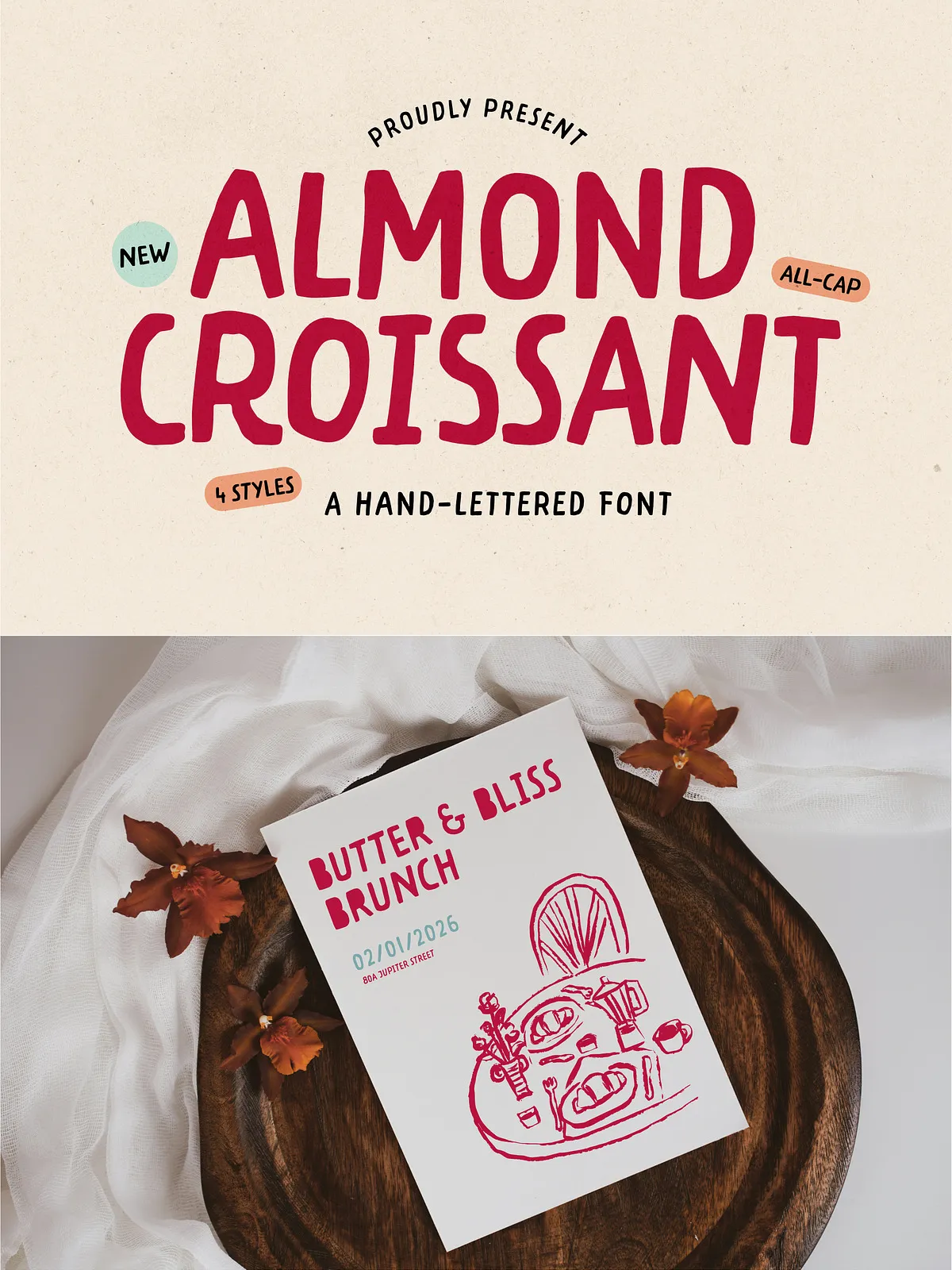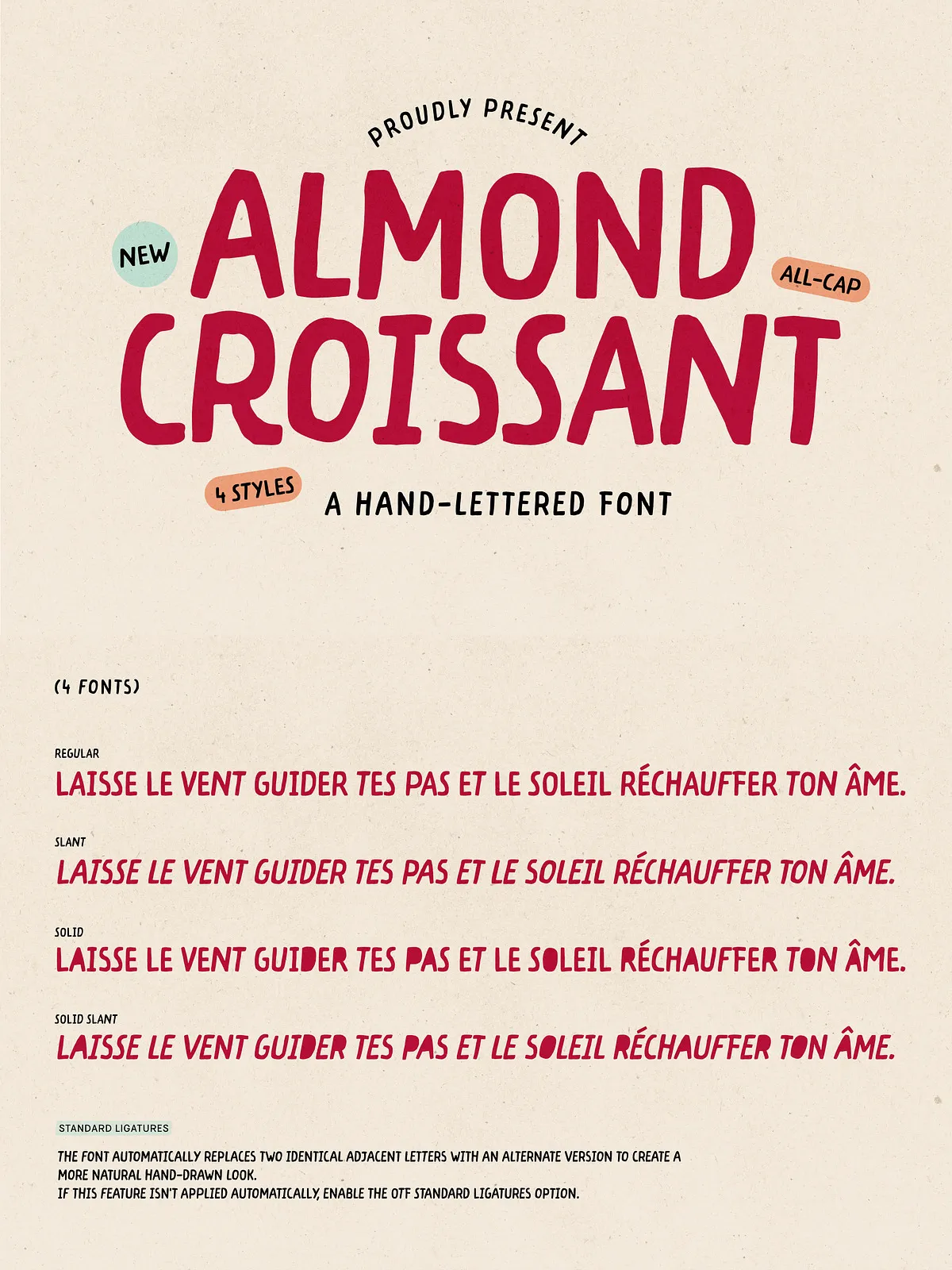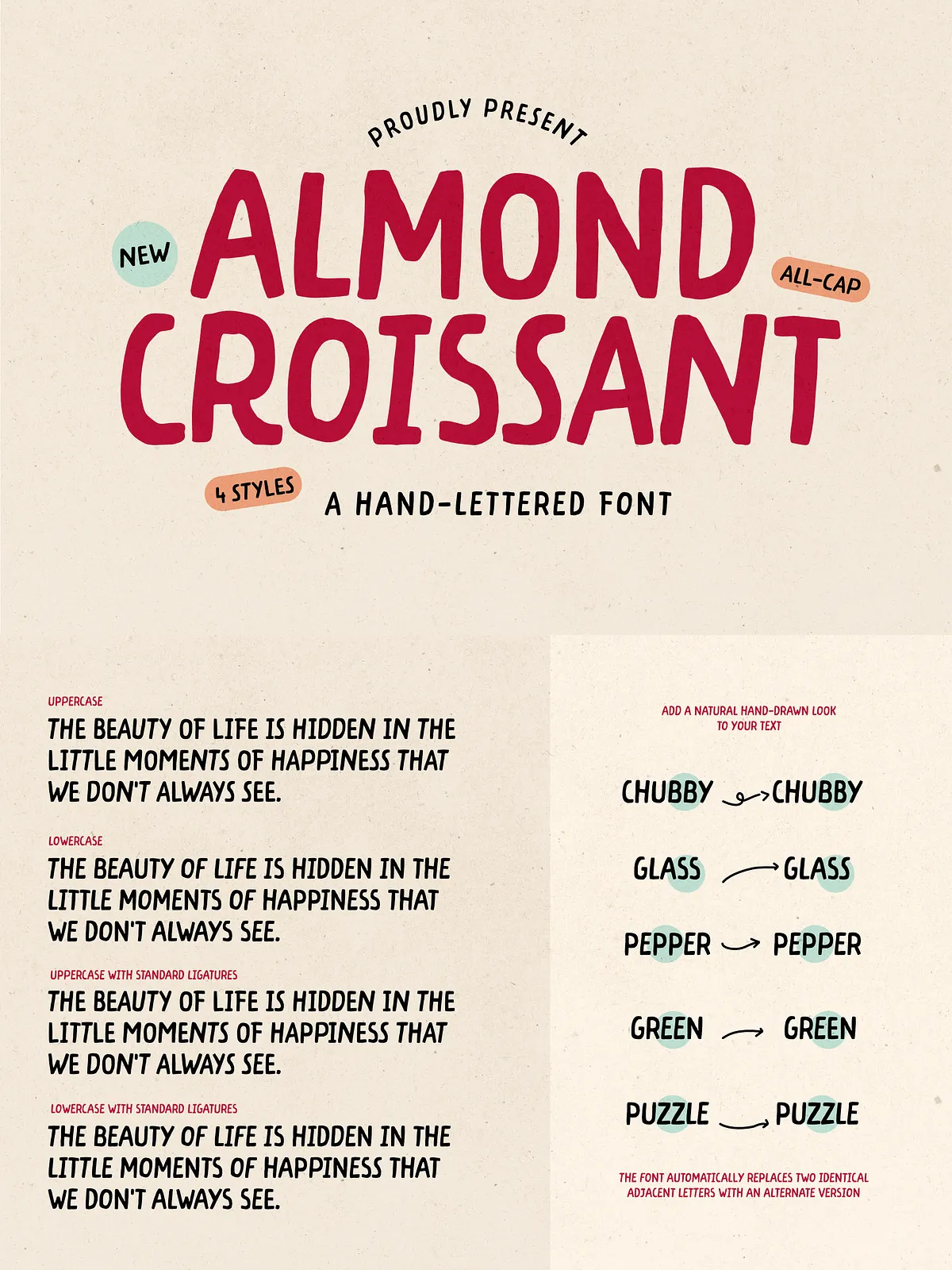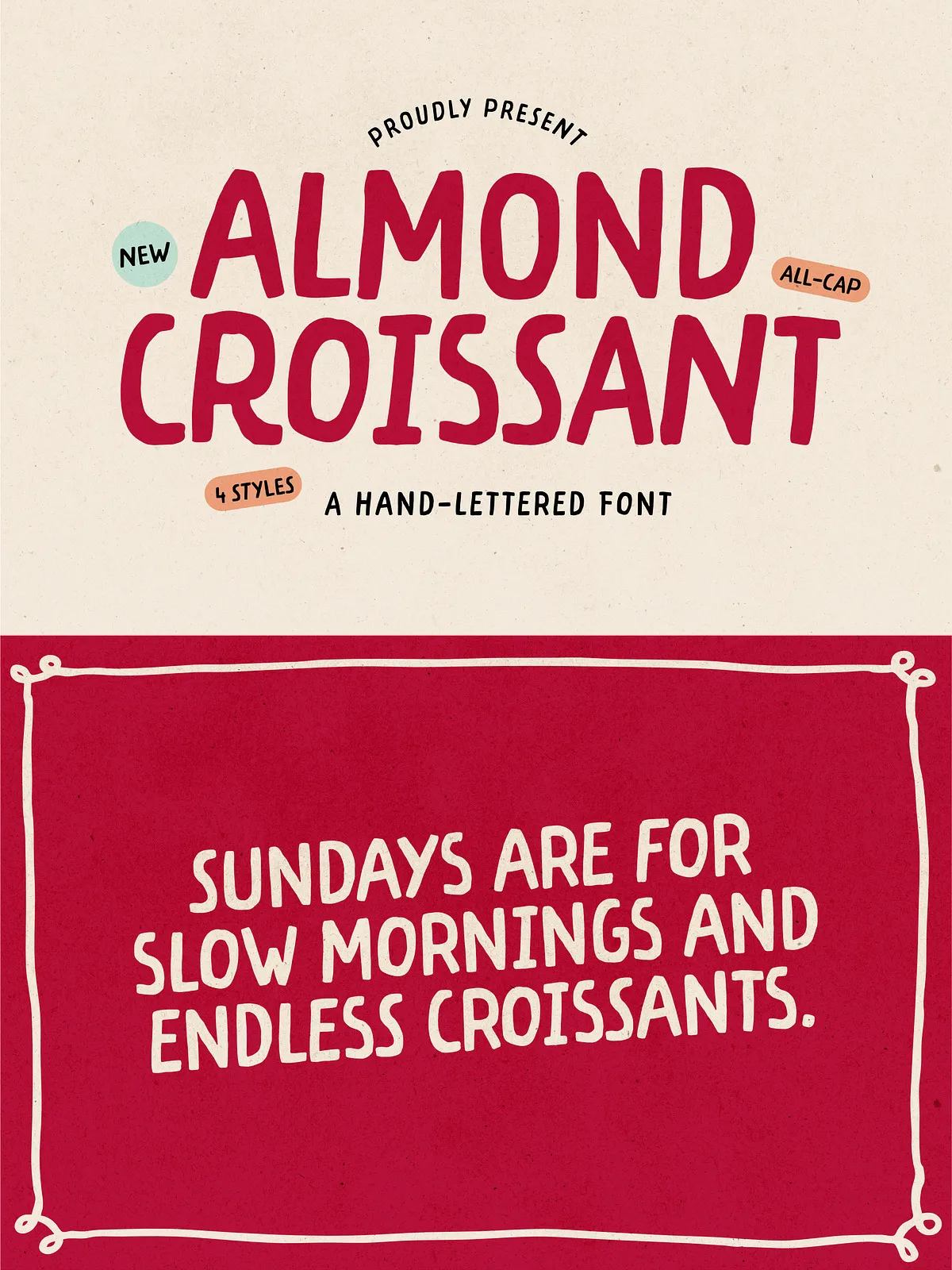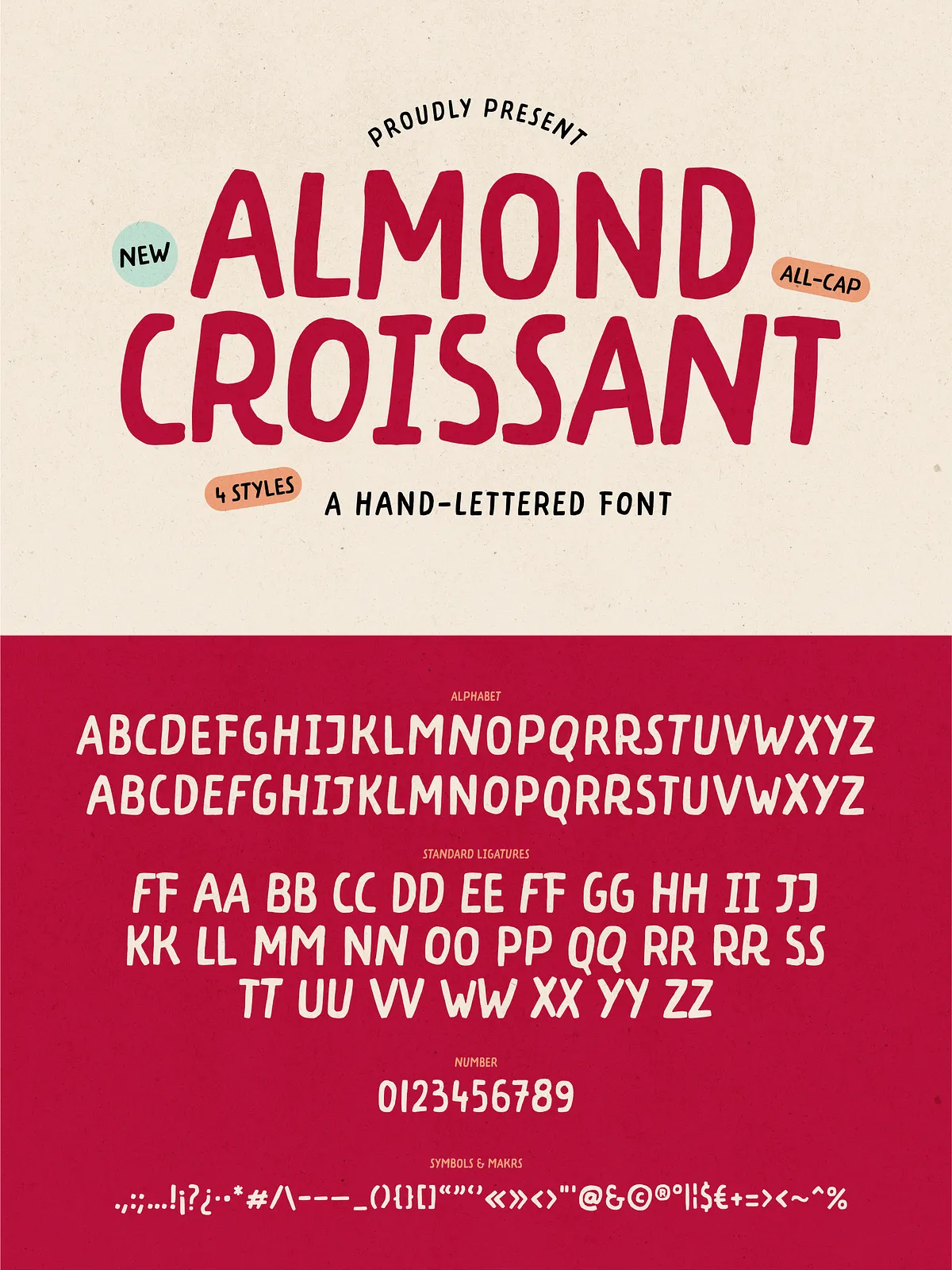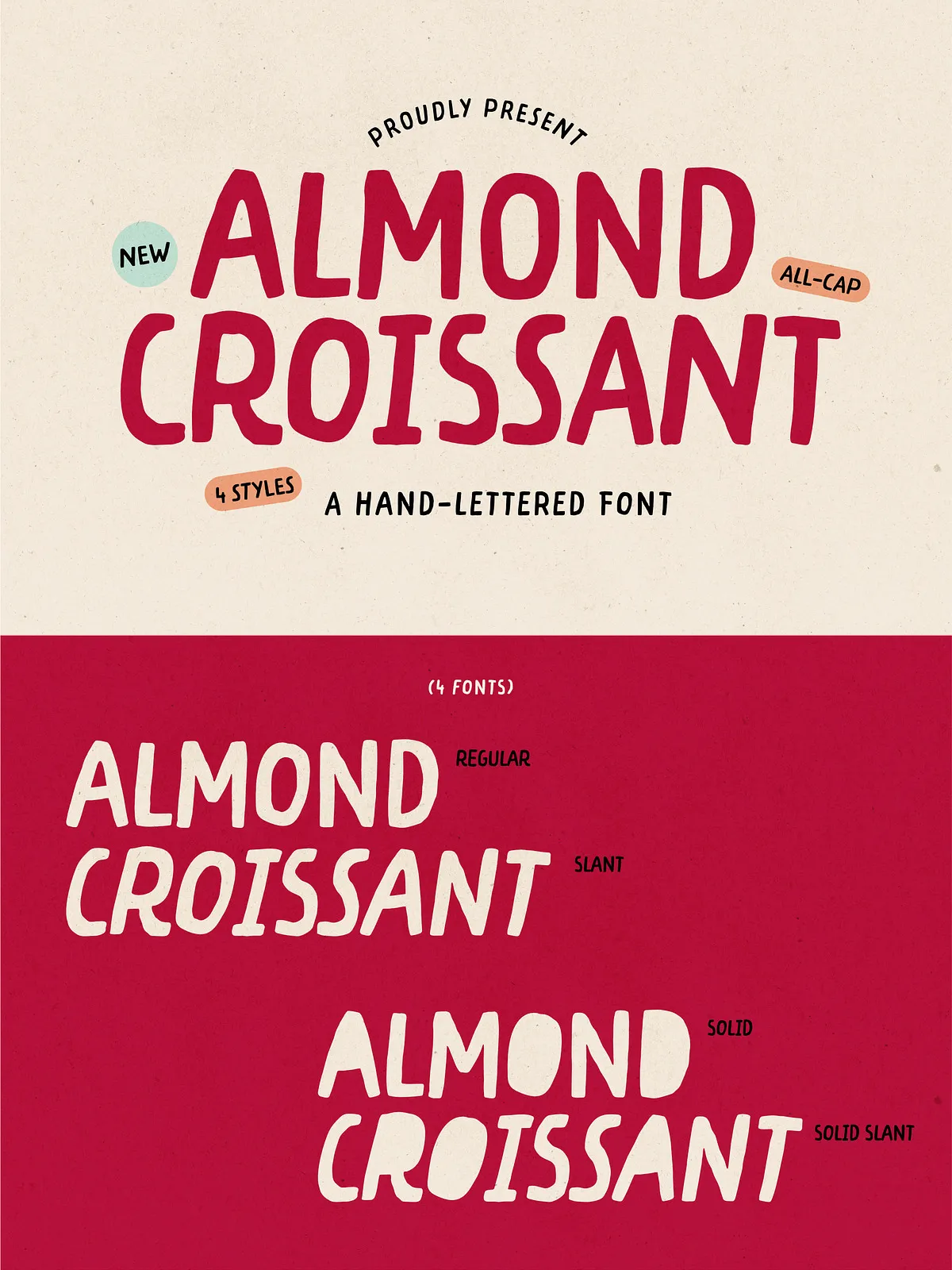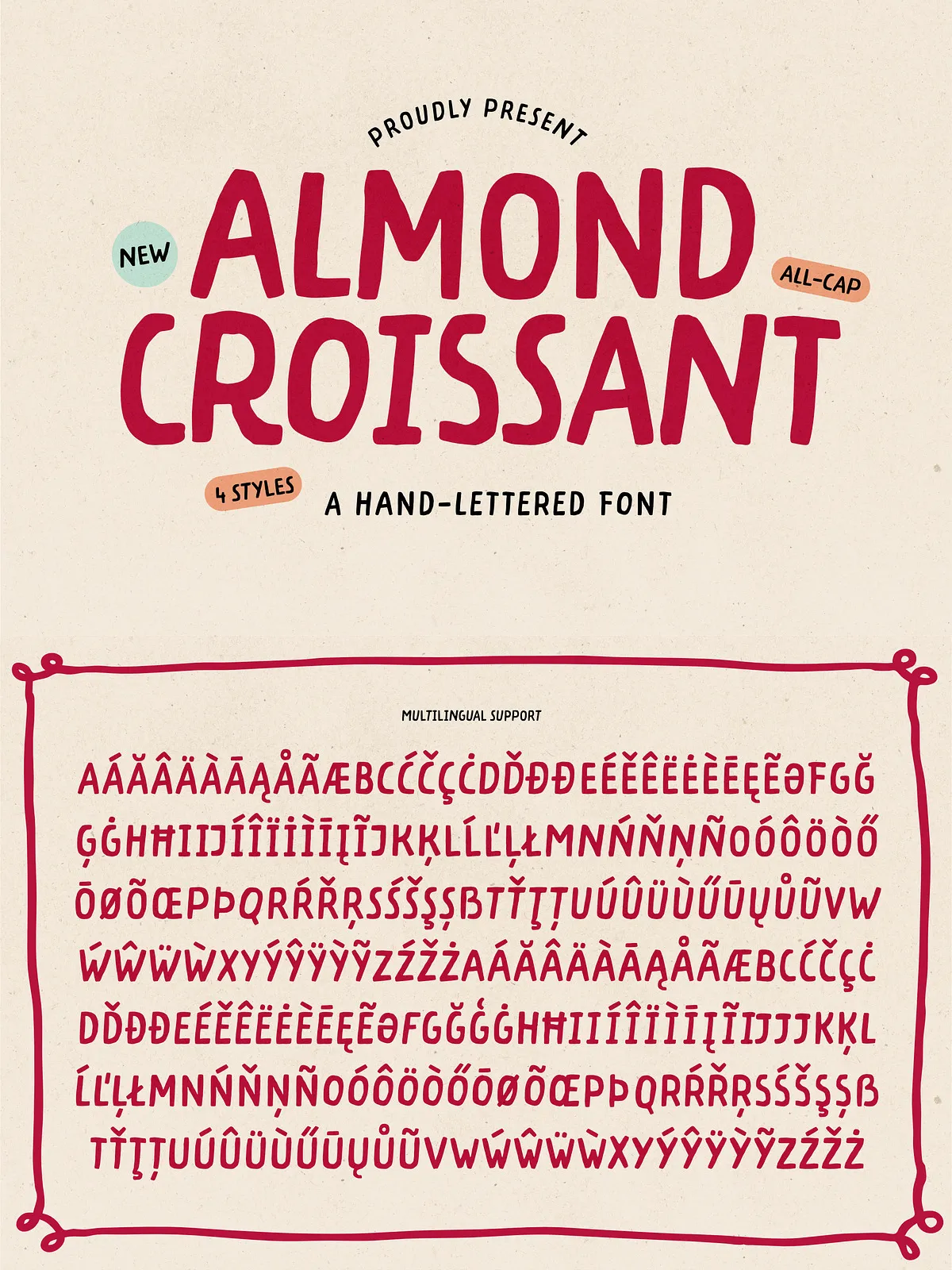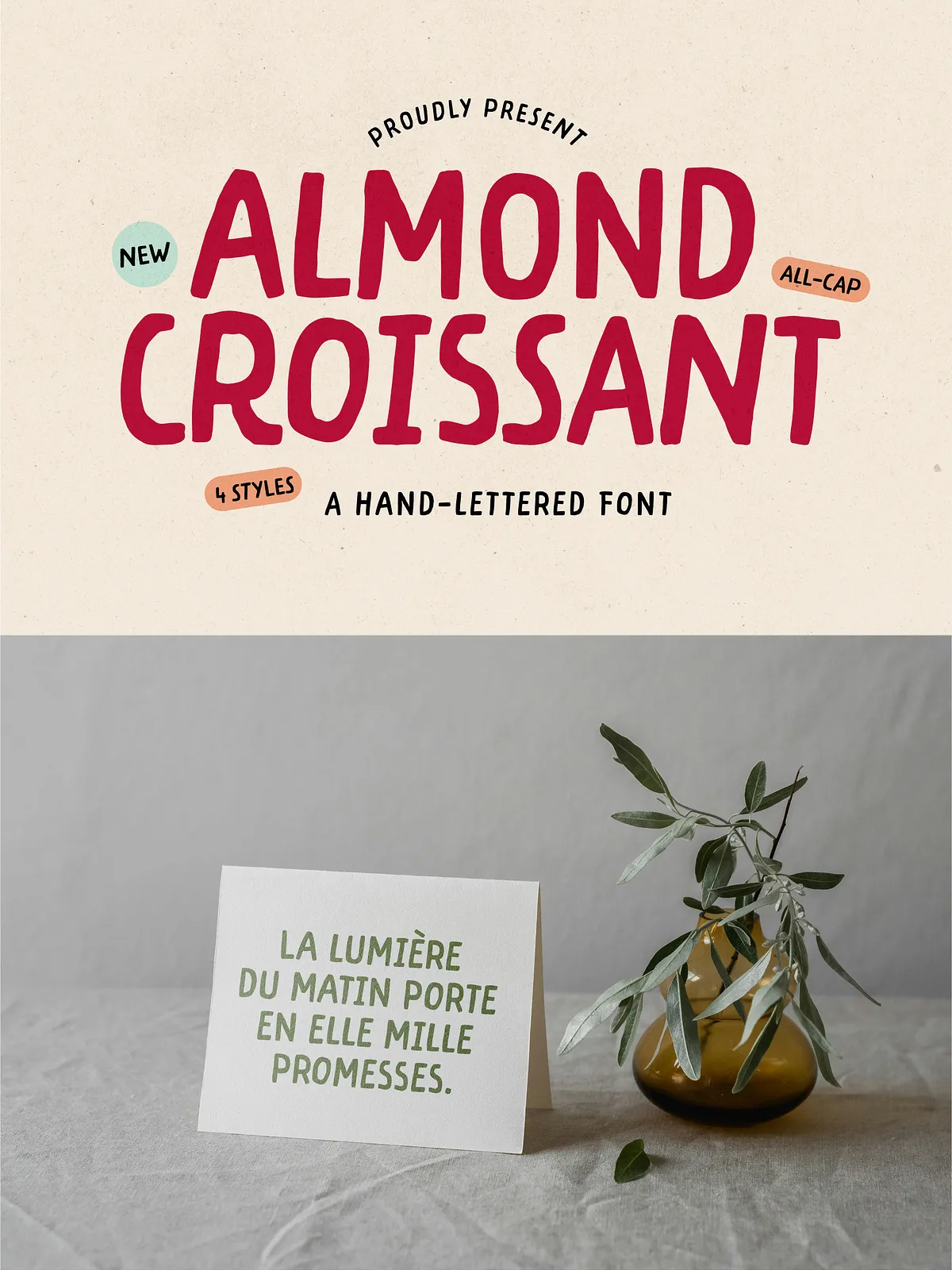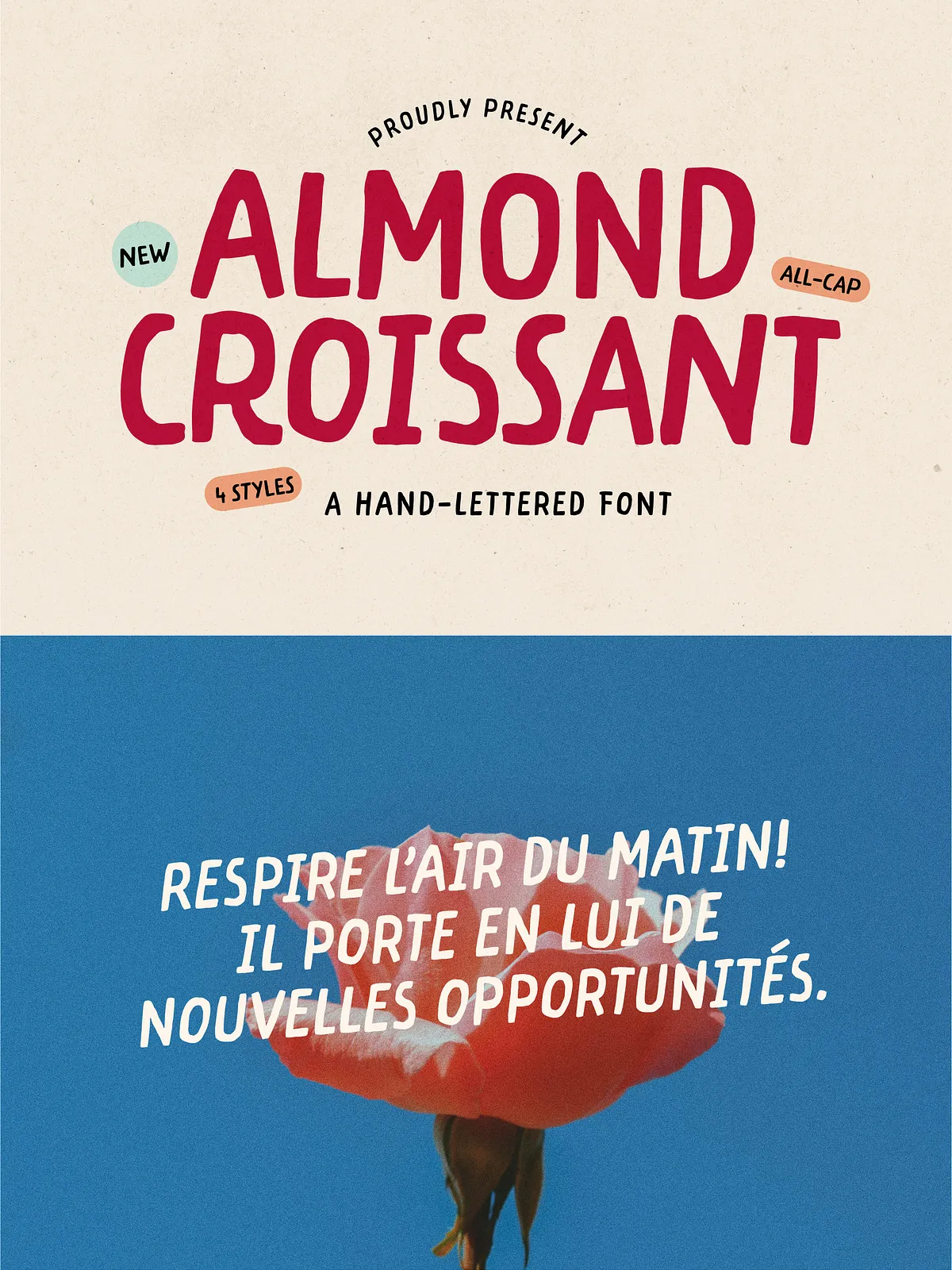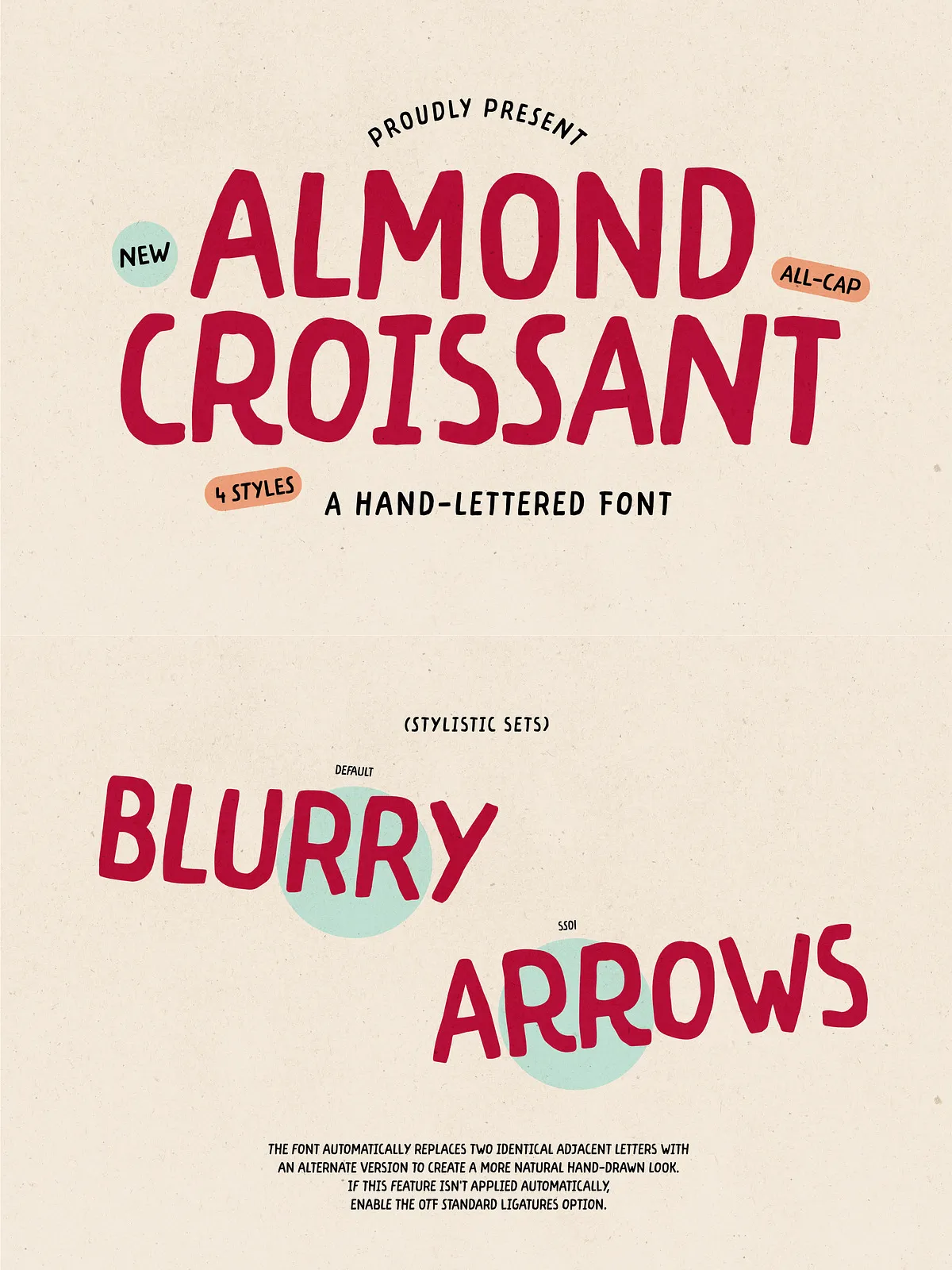
Meet Almond Croissant — a bold, expressive hand-lettered font family crafted to inject soul, motion, and character into your creative projects. Inspired by the organic flow of handwritten strokes, this all-caps typeface transforms static text into dynamic visual storytelling. Every curve and line carries the warmth and imperfection of real penmanship, giving your designs a human touch in an increasingly digital world.
Whether you’re building a brand identity, designing packaging, crafting social media graphics, or creating high-impact headlines, Almond Croissant delivers a unique personality that stands out from the crowd. It’s not just a font — it’s a voice that speaks directly to your audience.
Four Distinct Styles for Every Creative Mood
Almond Croissant isn’t a single style; it’s a family built for flexibility. With four carefully curated variations, you can match the tone, weight, and energy of your project with precision.
• Style 1: Classic Bold – For Impact and Authority
Perfect for headlines, logos, and branding where strength and clarity are key. This version emphasizes sharp contrast and strong structure, making it ideal for editorial design, product labels, and corporate visual identities.
• Style 2: Loose Flow – For Organic and Artistic Feel
Embrace spontaneity with flowing, uneven letterforms that mimic natural handwriting. Use this style in editorial layouts, art prints, event posters, and personal branding to convey a sense of movement and emotion.
• Style 3: Refined Script – For Elegant and Sophisticated Projects
Perfect for luxury branding, fashion design, invitations, and premium packaging. This variant maintains the handwritten charm while introducing subtle refinement and consistent spacing for a polished finish.
• Style 4: Bold Express – For Maximum Visual Energy
Designed for bold statements and high-visibility applications. Amplified stroke thickness and dramatic contrast deliver undeniable presence on posters, signage, and digital banners.
Smart Features That Elevate Your Typography
Almond Croissant isn’t just beautiful — it’s intelligent. Thanks to advanced OpenType features, the font adapts and enhances your text automatically for a more natural, professional look.
• Automatic Ligature System
When two identical adjacent letters appear (e.g., “LL”, “AA”), Almond Croissant automatically replaces them with a custom ligature variant. This prevents a stiff, mechanical appearance and mimics the natural flow of handwritten script.
• Full Unicode Support & Multilingual Ready
- Script: Latin
- Supported Languages: English, Western European, Central European, South Eastern European (with accented characters and diacritical marks)
- Comprehensive Character Set: Includes numerals, punctuation, currency symbols, mathematical signs, and special typographic marks — all hand-crafted to match the style.
• Advanced OpenType Features
- Stylistic Alternates – Access alternative versions of letters for variety and rhythm.
- Contextual Alternates – Automatic replacement based on neighboring characters for smoother flow.
- Swash Options – Add decorative flourishes to select letters (great for titles and headlines).
Perfect For: Where Almond Croissant Shines
Use Almond Croissant to bring emotional depth and artistic flair to these top applications:
- Brand & Logo Design — Create memorable identities with hand-lettered logos that feel personal and distinctive.
- Product Packaging — Add character to food, beverage, or lifestyle brand packaging with a warm, artisanal touch.
- Editorial & Editorial Layouts — Highlight quotes, chapter titles, or features with hand-sketched flair.
- Social Media & Digital Ads — Stand out in fast-paced feeds with expressive, eye-catching text.
- Event Design — Make invitations, posters, and signage feel handcrafted and intimate.
Whether you’re drafting a brand manifesto, launching a new product, or crafting a visual story, let Almond Croissant be the hand behind the pen. Let your typography speak with character.